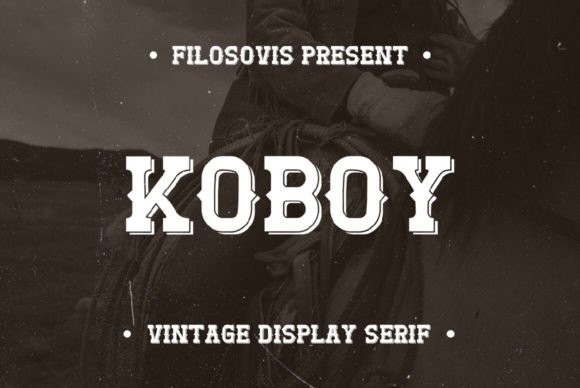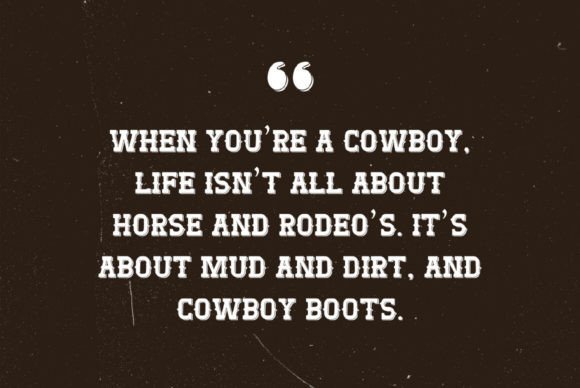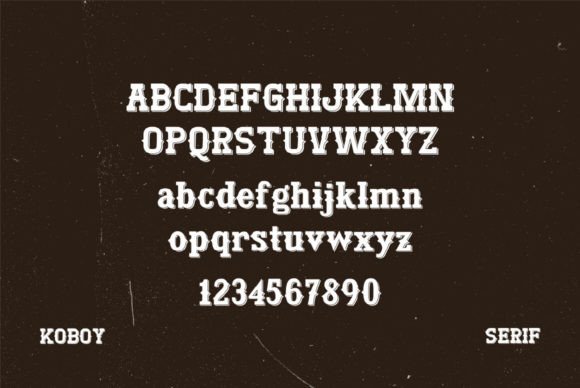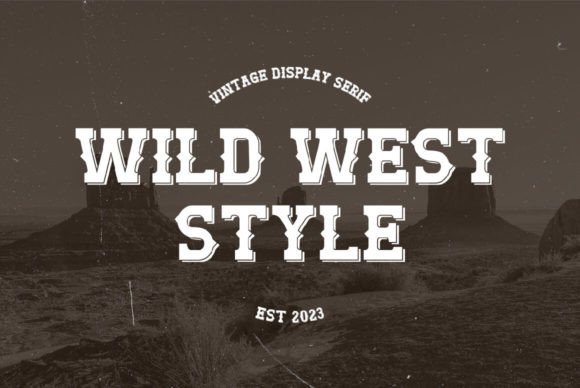
Koboy Font: A Bold Vintage Serif for Rustic Logo Design
About the Koboy Font
Introducing the Koboy Font, a beautifully crafted typeface designed to elevate your creative projects. ‘Koboy Font’ is characterized by its bold and strong lined appearance, with letters in cowboy style design. This font is a perfect choice for vintage or old-school themes. You can use this font for many purposes such as vintage logos, mugs, embroidery, prints, displays, short text, packaging, cards, emblems, signage, and many more
Koboy Font’s bold, strong lines are ideal for headlines, branding elements, and short impactful text on packaging or signage. Its vintage aesthetic works exceptionally well for projects with a Western, Americana, or retro feel. Avoid using it for body text or long paragraphs; its weight and style are not conducive to readability in extended blocks of copy. Similarly, it may prove less effective in UI contexts requiring high legibility.
Pairing Koboy Font effectively requires considering its robust personality. A clean sans-serif like Futura or a geometric sans-serif like Montserrat would provide a modern contrast, balancing Koboy’s vintage charm. For a softer approach, a classic serif like Garamond or a more playful script font could also work well, depending on the desired overall mood.
The font’s core personality is rugged and bold, conveying a sense of strength and tradition. Brands focused on outdoor adventures, handcrafted goods, whiskey, or classic Americana would find it a fitting choice.